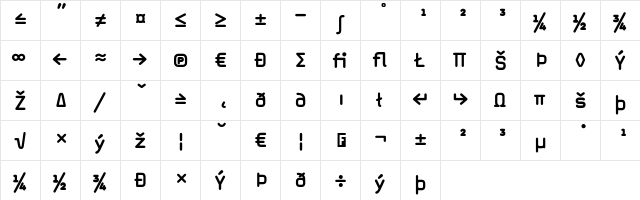
MagdaClean BoldExpert
Design Context for MagdaClean Typeface
MagdaClean offers clean, dependable letterforms without strong stylistic allegiance, making it a practical choice for designers who need flexibility. The heavy weight commands attention and anchors typographic hierarchies.